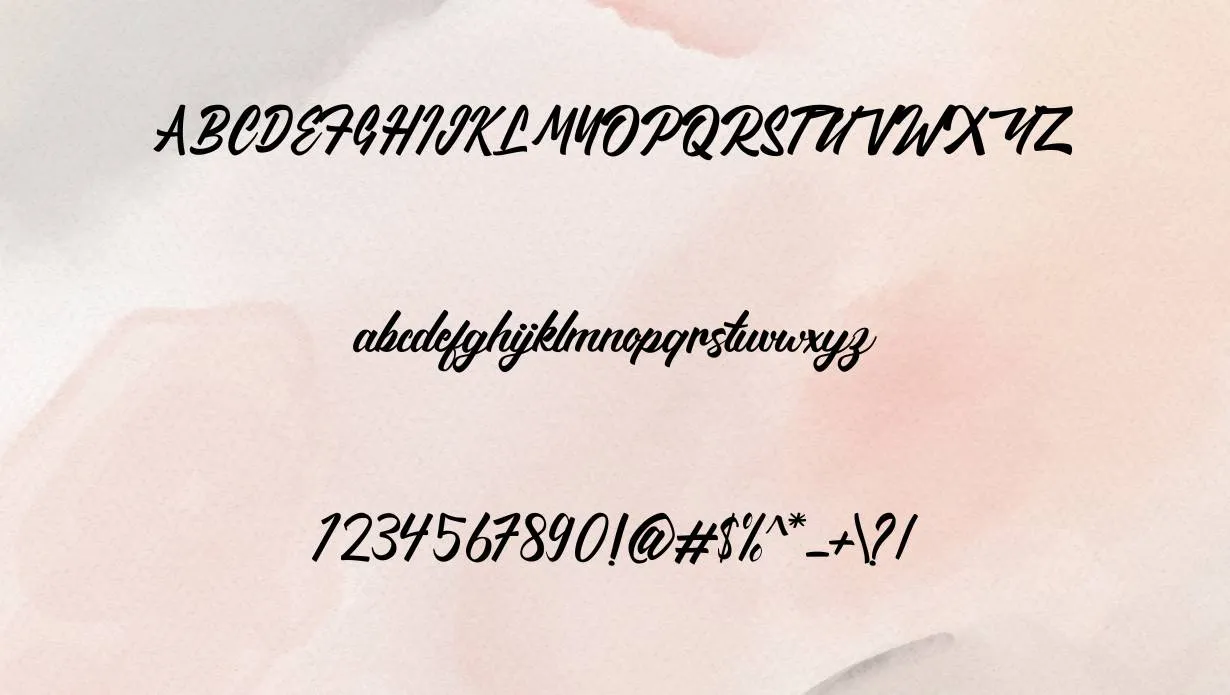
Brady font is a reliable friend that’s always there for you, and when you use it, your words get a classic and timeless look. It’s the font that brings a touch of tradition to your text, making it perfect for formal letters or when you want to create a sense of enduring trust.
The weight of Brady is solid and dependable, giving your words a timeless presence. Its width is confidently classic, creating a sense of enduring style. This font is like wearing a well-tailored suit for your words, making them appear timeless, dependable, and always in style.